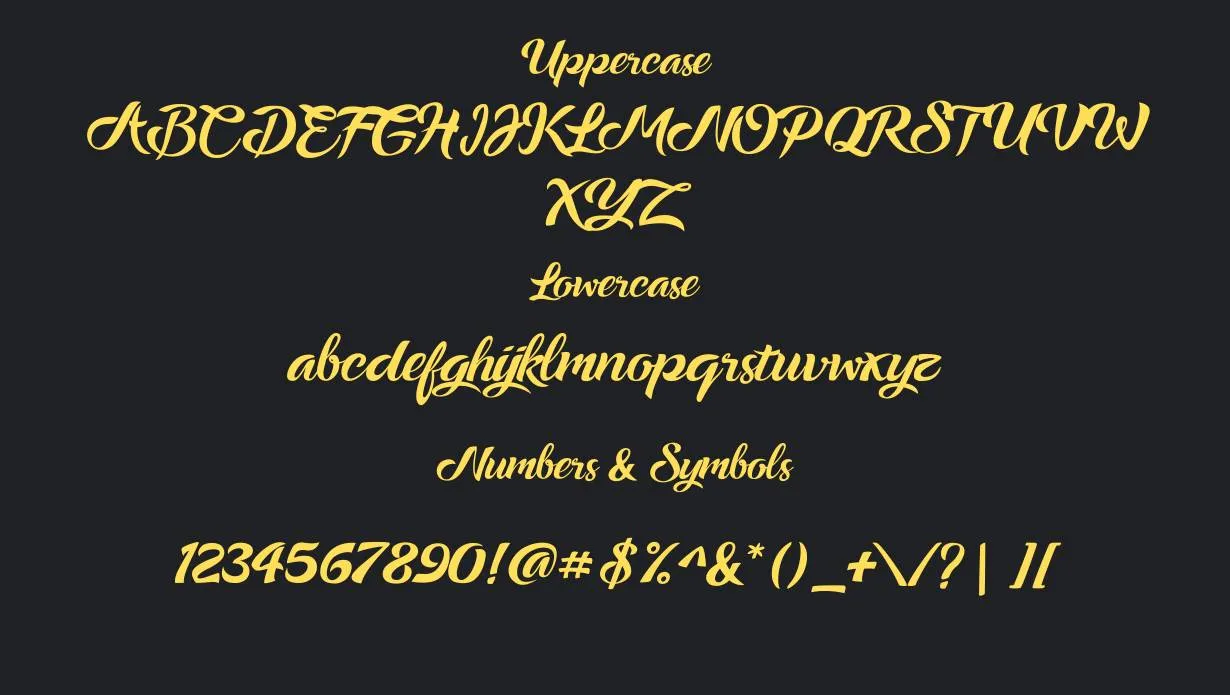
The Ampera font is a bold and striking typeface commonly used in designs aiming for a strong and impactful look. Its sharp and distinctive letters make it suitable for conveying a modern and dynamic feel.
This font is often used in headlines, posters, or branding materials. The weight of the Ampera font is usually bold, ensuring a commanding and attention-grabbing presence.
| Name | Ampera Font |
| Designer | Khoe Roni |
Its width is relatively standard, making it ideal for larger text applications, such as titles or headings in various design contexts.